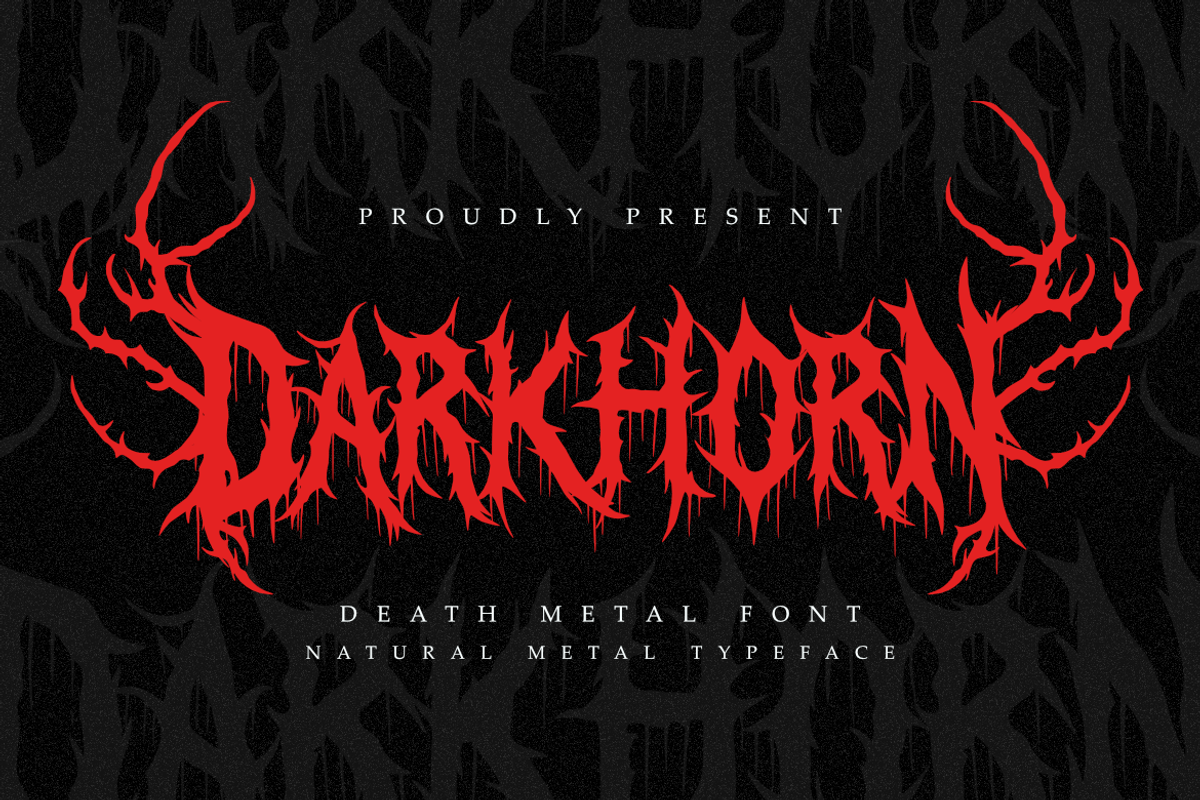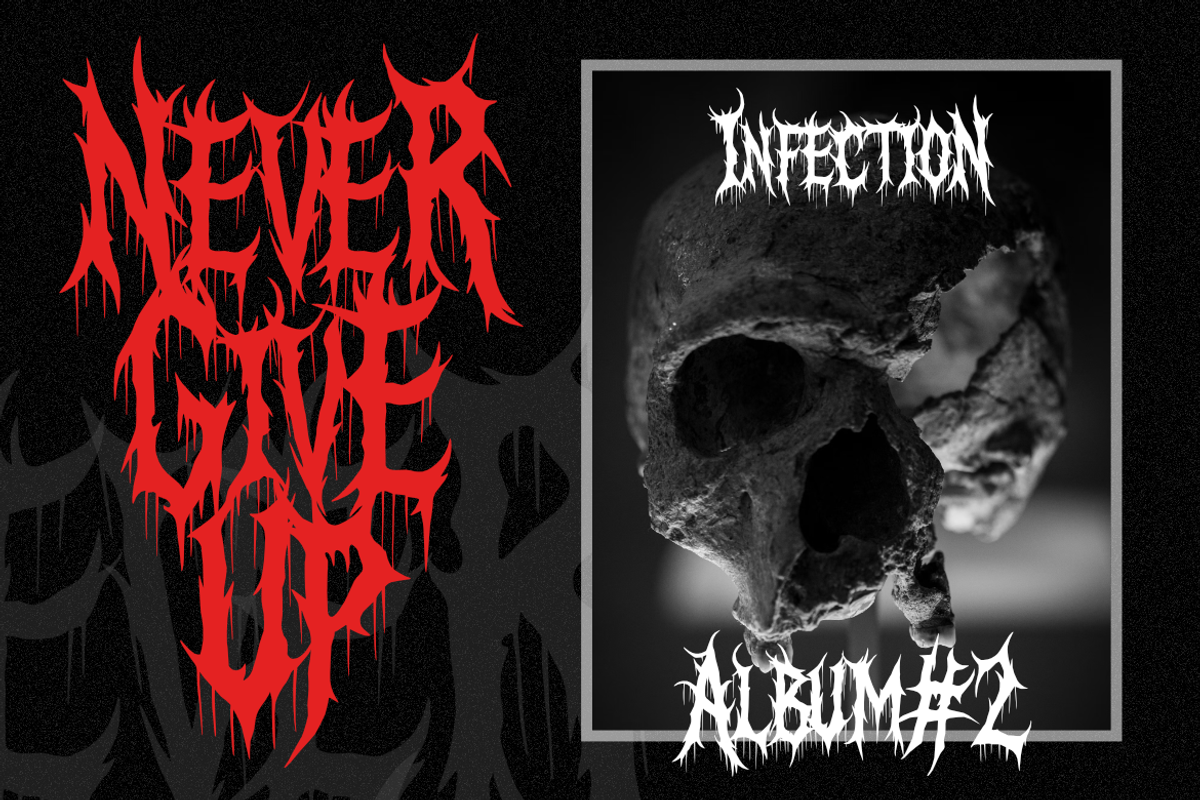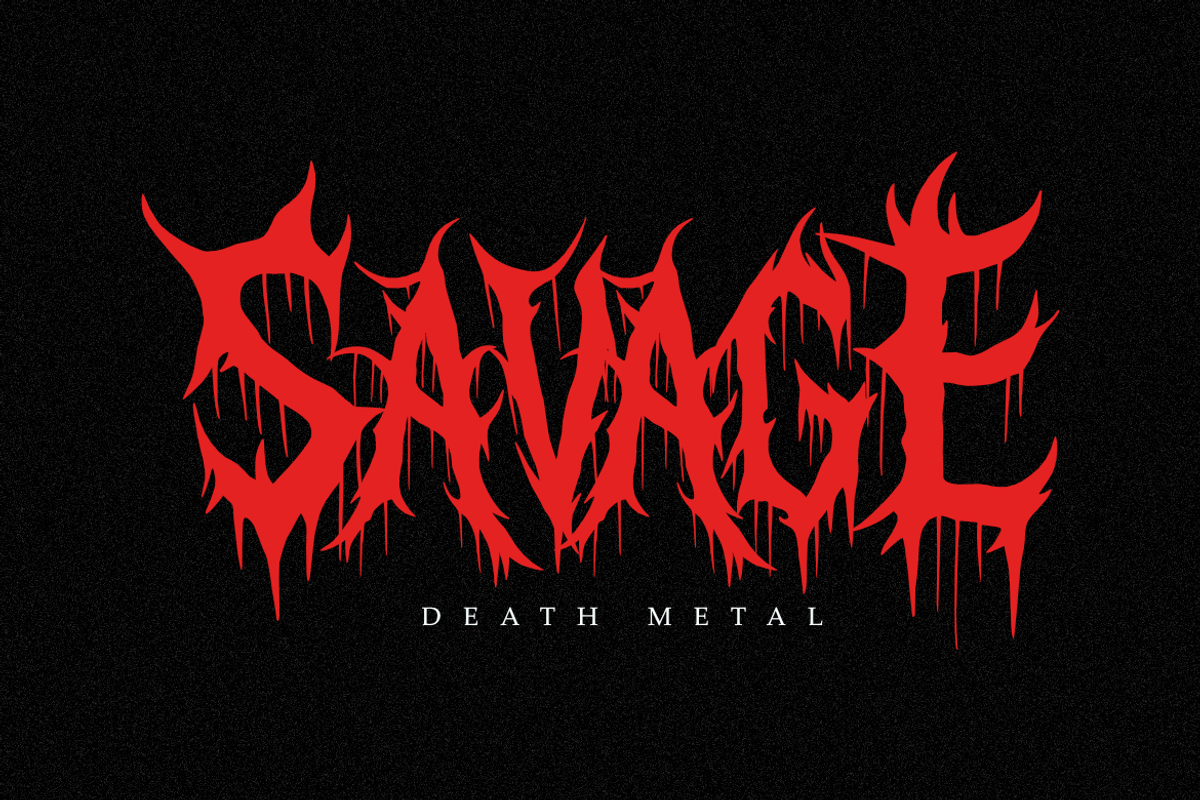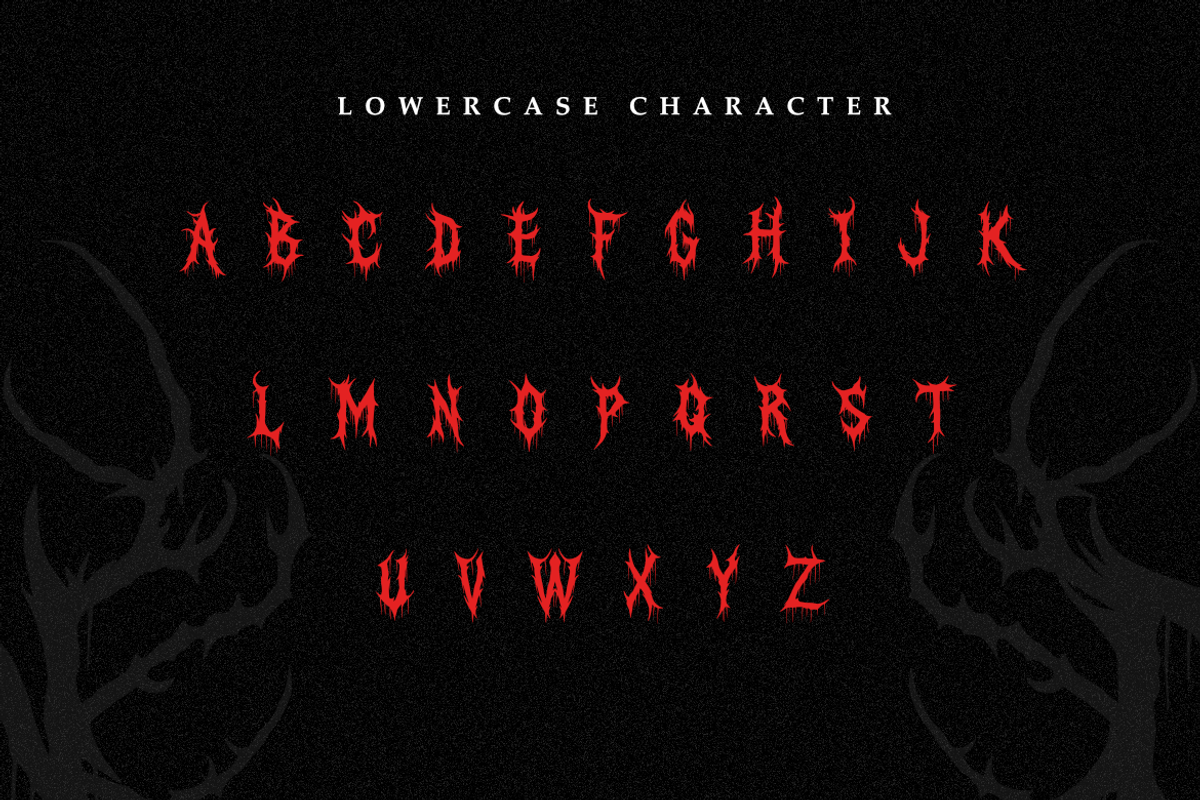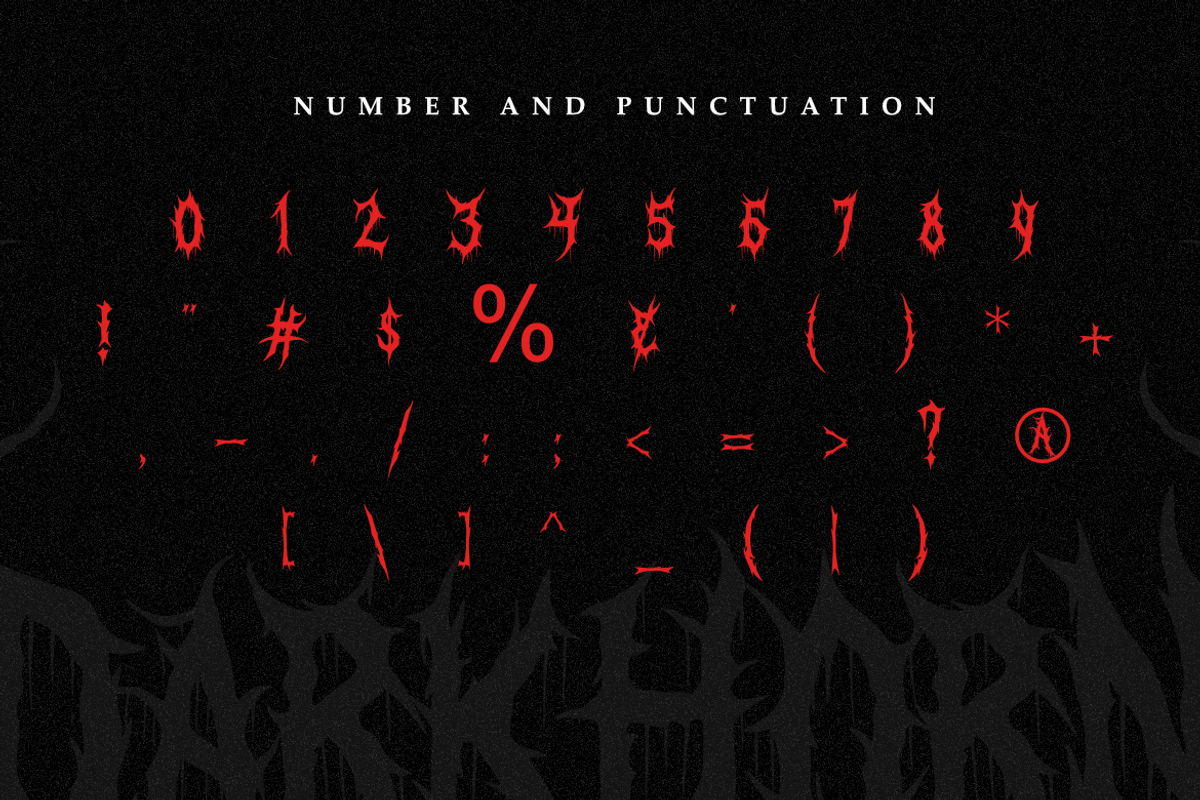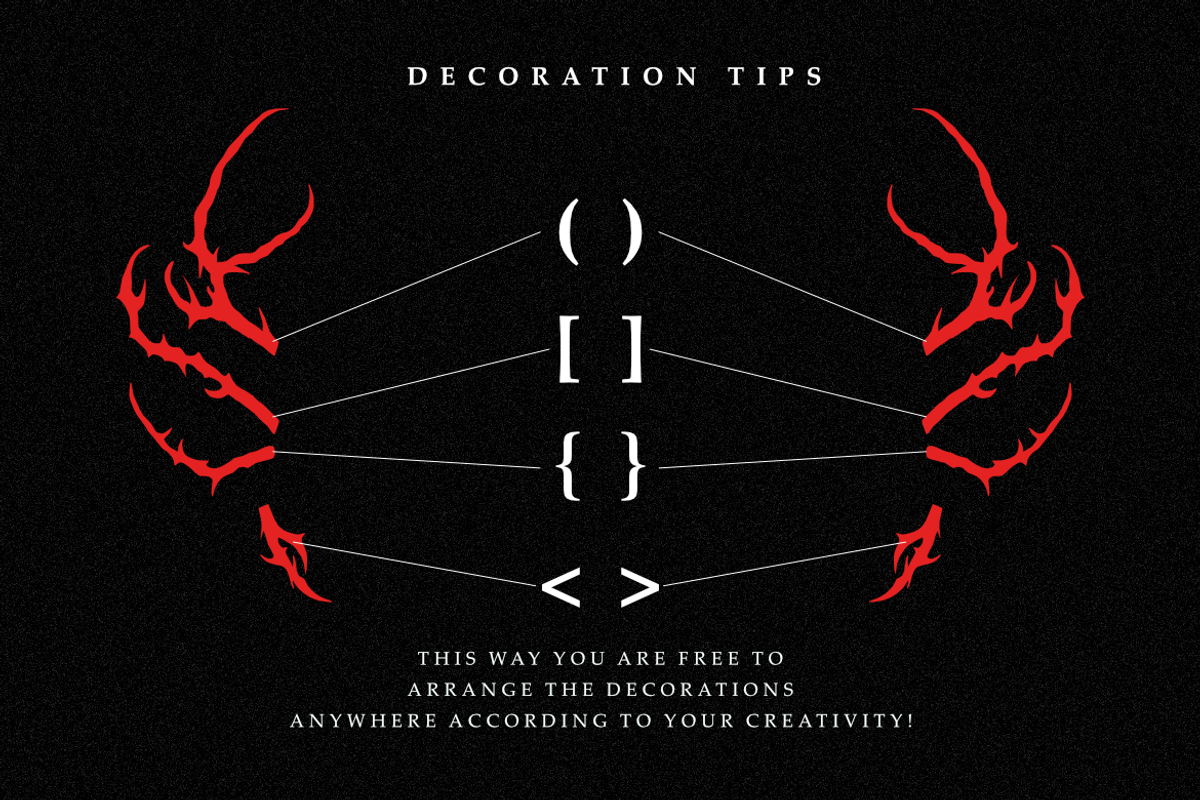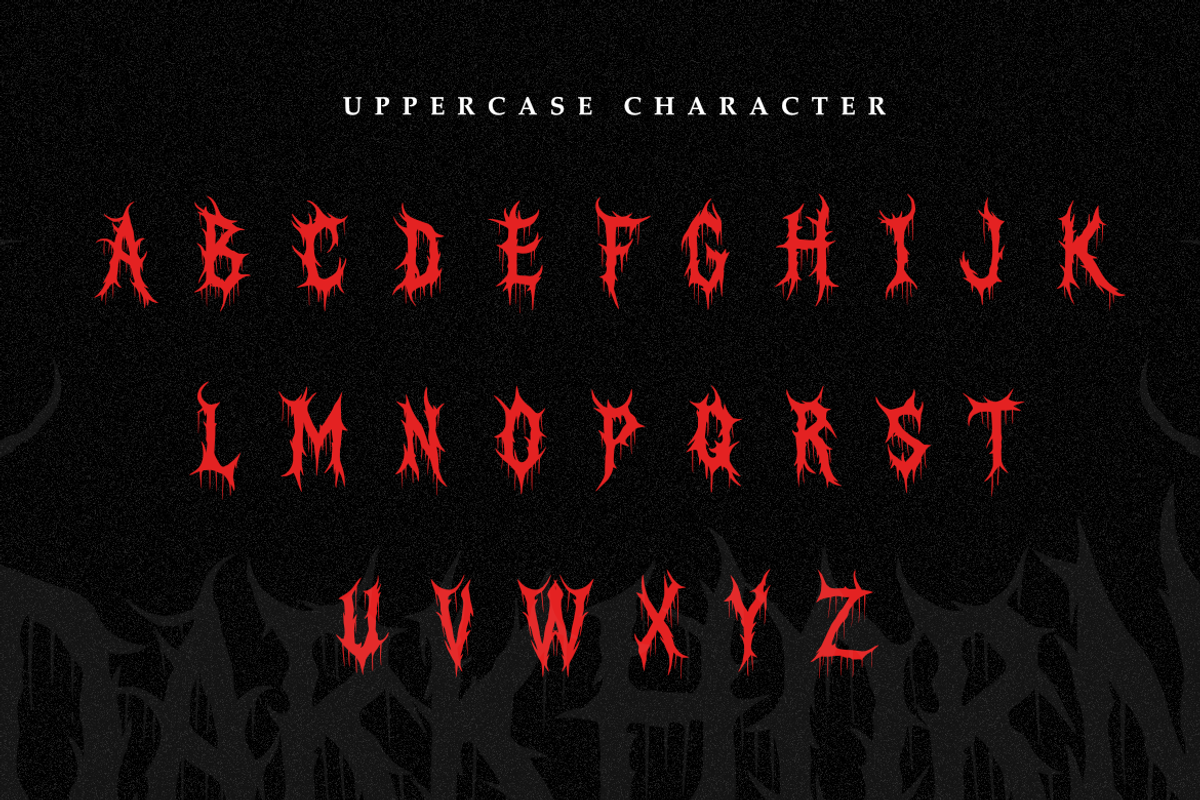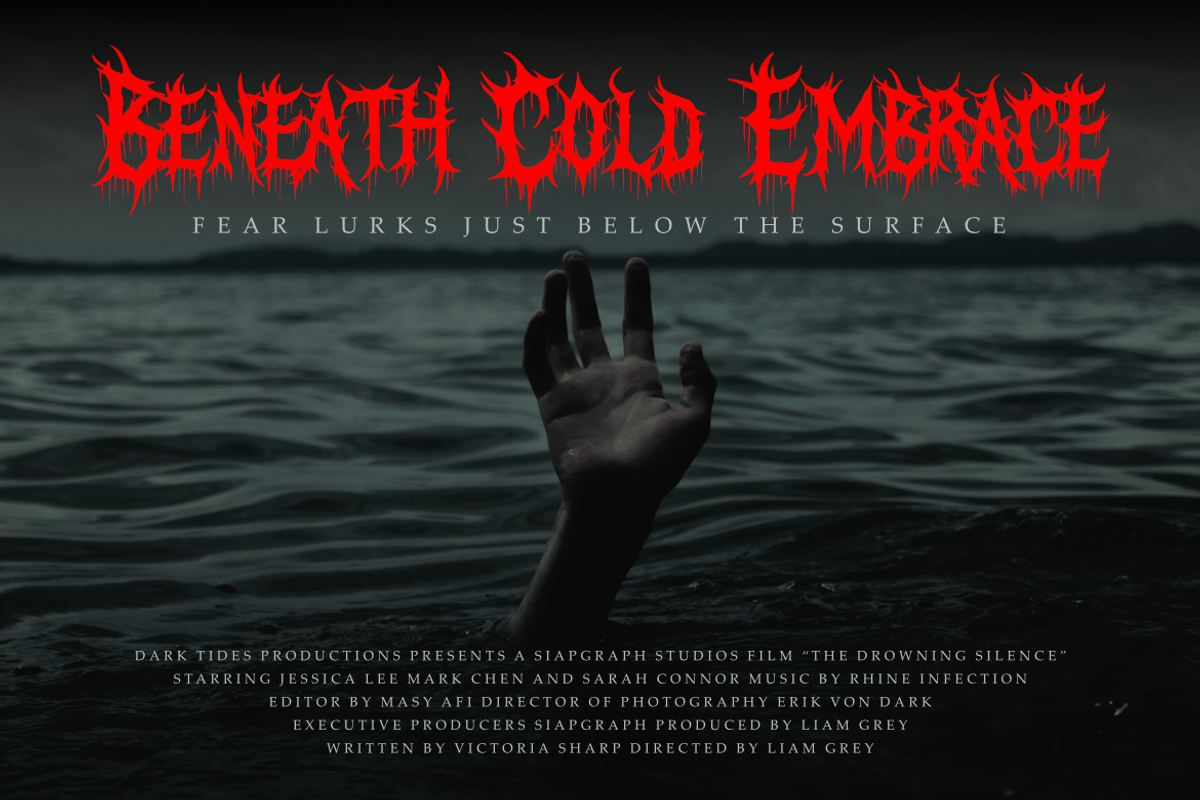
Darkhorn | Death Metal Font
Elevate your dark designs with Darkhorn, an aggressive death metal font meticulously crafted for maximum brutality. Taking inspiration from the organic textures of roots and the sharp silhouette of horns, Darkhorn is more than just a font—it’s a statement of extreme art.
This font is perfect for designers looking to create authentic band logos, gritty streetwear graphics, or atmospheric horror posters. Its complex yet balanced structure ensures that your message remains impactful while maintaining that raw, unpolished metal aesthetic.
- Bold & Spikey Letterforms